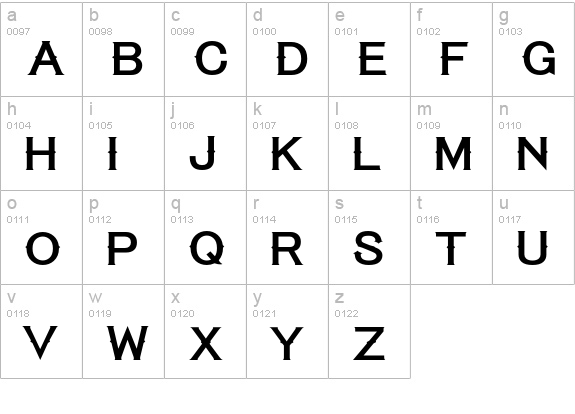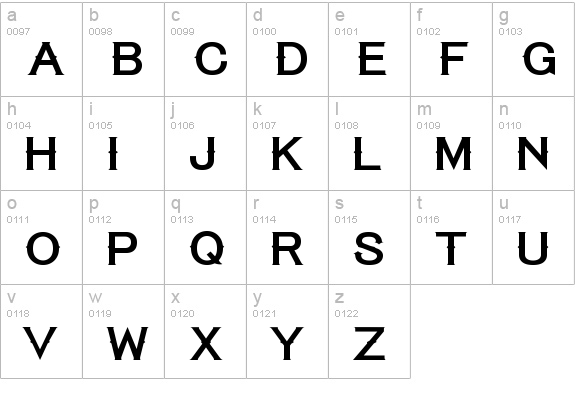
Tequila Sunrise Regular is the standard, neutral variant in the Tequila typeface family \xE2\x80\x94 well suited to general body text, paragraphs, and standard typographic work.
Tequila Sunrise Regular font is a captivating typeface that combines elegance with a touch of playfulness. Its clean lines and stylish curves make it the perfect choice for a wide range of projects, from branding to packaging, advertising to social media graphics. With its versatile nature, Tequila Sunrise Regular font can effortlessly adapt to various design styles, making it a go-to option for both professional designers and beginners alike. Whether you're creating a sophisticated logo or designing a trendy poster, this font has got you covered. One of the most appealing aspects of Tequila Sunrise Regular font is that it is freely available to download at FontsMarket.com. This means that you can access this remarkable font without any cost, making it an excellent choice for those on a budget or simply looking for high-quality fonts without breaking the bank. Furthermore, this font is not only visually appealing but also highly legible, ensuring that your message will be communicated clearly and effectively. Its well-designed characters and balanced spacing contribute to a seamless reading experience, captivating your audience and leaving a lasting impression. In addition to its aesthetic qualities, Tequila Sunrise Regular font also provides extensive language support, allowing you to use it in various multilingual projects. Its versatility extends beyond borders, making it an invaluable asset for designers working on international campaigns. So, if you're in search of a font that effortlessly combines elegance and playfulness, look no further than Tequila Sunrise Regular font. Download it for free at FontsMarket.com and elevate your designs to new heights with this remarkable typeface.